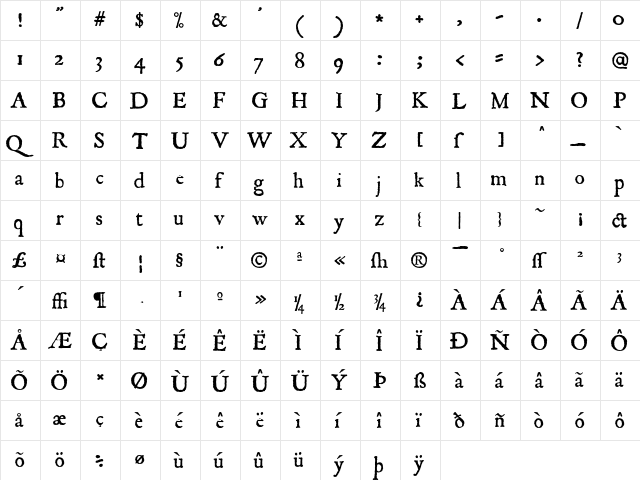
Roman Antique Regular
Design Context for Roman Antique Typeface
Roman Antique wears its vintage influences proudly, with letterforms that recall mid-century signage, classic packaging, and nostalgia-driven design.
Font Pairing: Combine Roman Antique with a simple slab or neutral sans — period-accurate companions reinforce the vintage feel without competing for attention.
Pro Tip: Use Roman Antique for headlines and pull quotes rather than body copy — its personality is best appreciated in short, focused bursts.